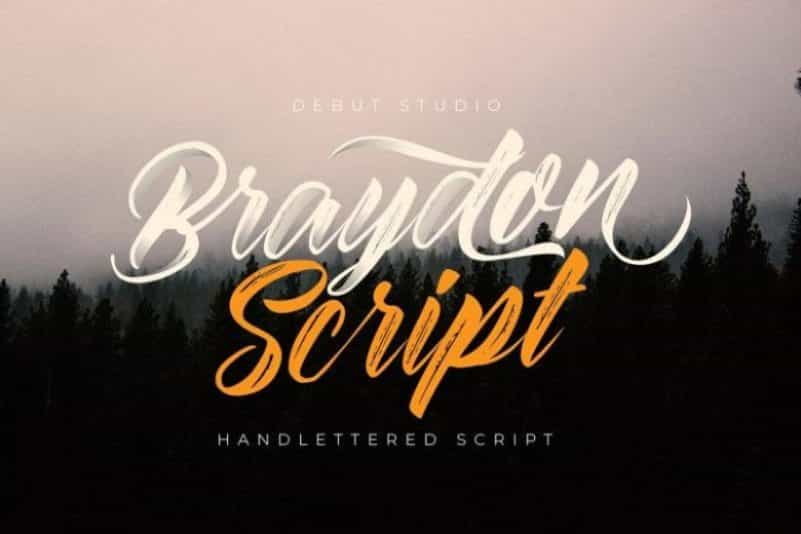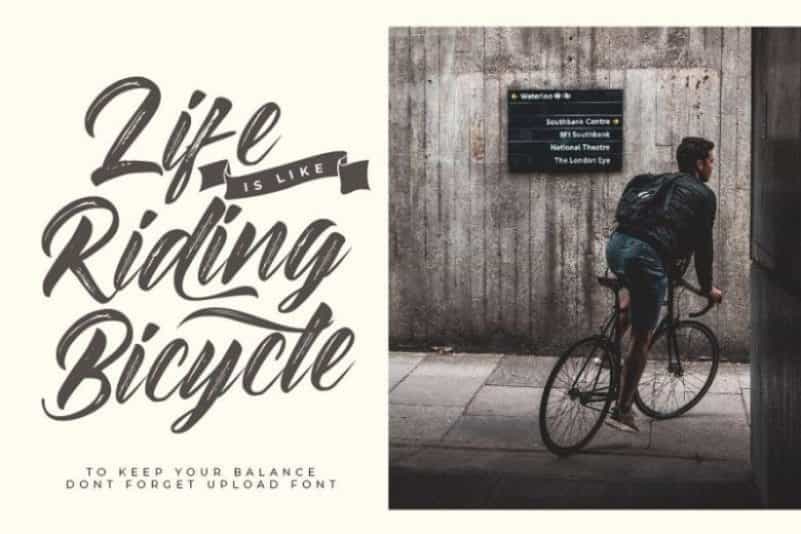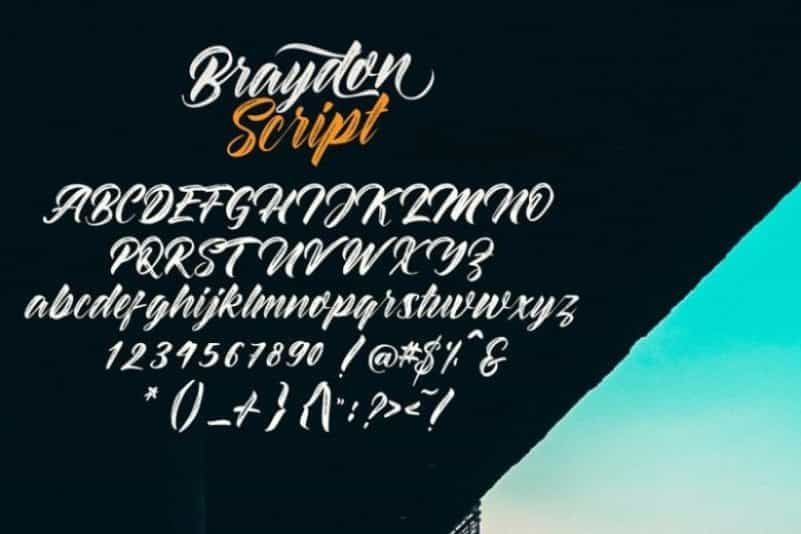
Discover Braydon Script Font, part of the Brush collection—a versatile and unique font perfect for adding a personal touch to your projects. Download it for free and enjoy crafting designs with style, from invitations to social media posts. This font is available exclusively for personal use, giving you the freedom to create without limits. Unlock your creativity with Braydon Script Font today!
Introducing Braydon Font. This is a font with unique handwritten characters ideal for branding projects, logos, wedding designs, social media posts, adverts, product packaging, product designs, labels, photography, watermarks, invitations, stationery, and any project that need handwritten dishes.